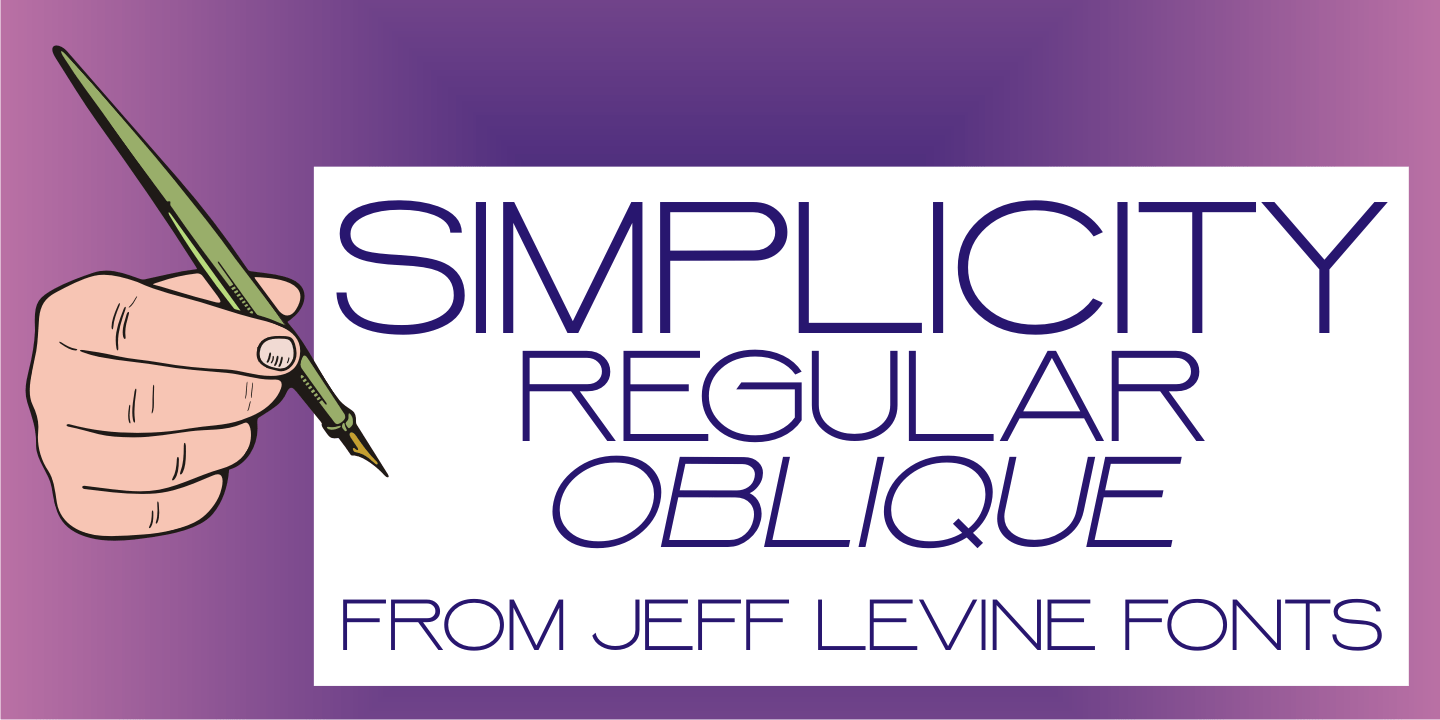
Simplicity
Simplicity JNL is a lightface monoline sans design for titling and short text that is clean and effective without being bland. Available in both regular and oblique versions.
Simplicity JNL Regular by Jeff Levine Fonts